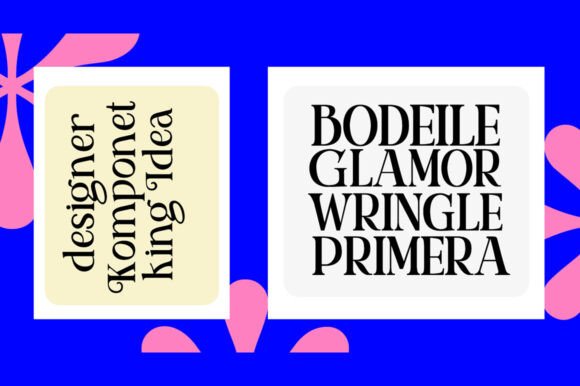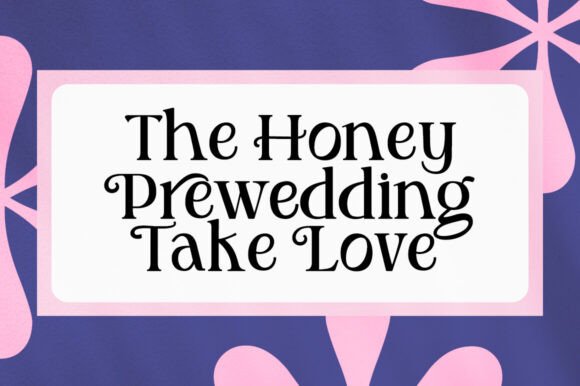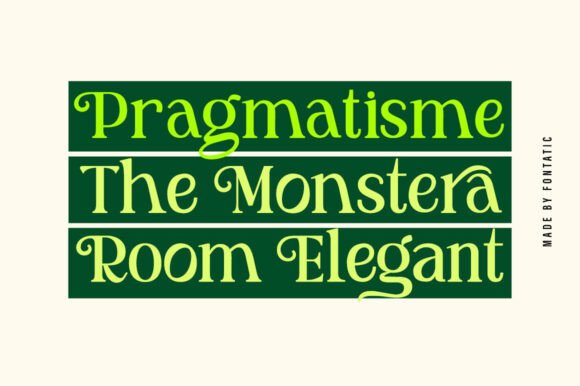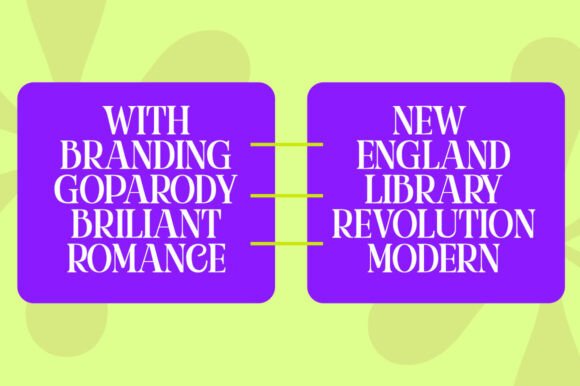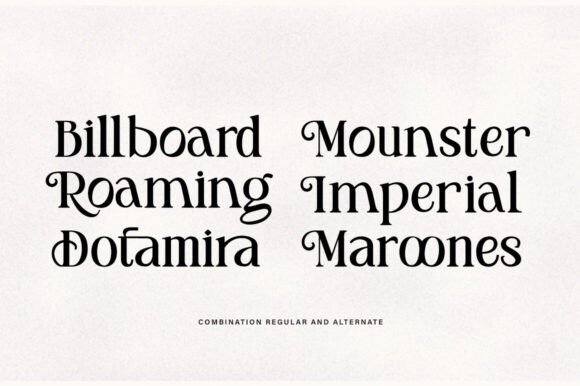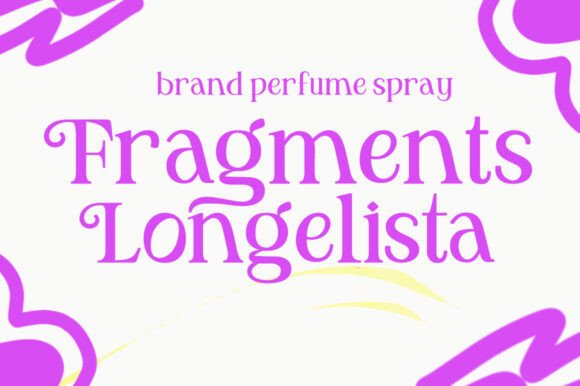
Introducing Glower Font: A Versatile Serif Typeface with Endless Possibilities
In the world of typography, a font can make or break a design project. With the right typeface, a message can be conveyed with clarity and style, while a poorly chosen font can leave a lasting negative impression. This is where Glower Font comes in – a serif font that boasts a unique blend of geometric and traditional designs, offering unparalleled versatility for designers and crafters alike.
A Serif Font with a Twist
Glower is a serif font that defies traditional categorization. Its design combines the clean lines and geometric shapes of modern typography with the classic elegance of traditional serif fonts. The result is a typeface that is both timeless and contemporary, suitable for a wide range of design applications.
Variety and Flexibility
One of the standout features of Glower Font is its varied set of alternate styles. This allows designers to experiment with different looks and feels, tailoring the font to suit their specific design needs. Whether you’re creating a bold frontispiece or a lengthy passage of text, Glower has you covered. The font offers both upright and italic character types, ensuring that your text always looks polished and refined.
Alternate Glyphs and OpenType Styles
What truly sets Glower apart is its use of alternate glyphs and OpenType styles. By accessing a series of OpenType styles, designers can unlock a range of creative possibilities, from subtle variations to dramatic transformations. This feature allows for endless experimentation and innovation, making Glower an ideal choice for designers looking to push the boundaries of typography.
Strong Frontispiece and Easy Readability
Glower Font is designed to perform exceptionally well in a variety of contexts. At large sizes, it makes a strong impression as a frontispiece, while its clear and legible design ensures easy readability in freeform text. This versatility makes it an excellent choice for designers working on projects that require both headline-grabbing flair and body text legibility.
Applications and Inspiration
So, what can you create with Glower Font? The possibilities are endless! Here are a few ideas to get you started:
- Branding and logos: Use Glower’s unique blend of geometric and traditional designs to create a memorable brand identity.
- Headlines and titles: Take advantage of Glower’s strong frontispiece to create eye-catching headlines and titles.
- Body text and articles: Glower’s easy readability makes it perfect for lengthy passages of text.
- Packaging and labels: Add a touch of elegance and sophistication to your packaging and labels with Glower.
- Digital and print media: Use Glower to create visually striking digital and print materials, from brochures to social media graphics.
In conclusion, Glower Font is a versatile and expressive serif typeface that offers designers and crafters a wealth of creative possibilities. With its unique blend of geometric and traditional designs, varied set of alternate styles, and use of alternate glyphs and OpenType styles, Glower is the perfect choice for any design project. Whether you’re a seasoned designer or just starting out, Glower Font is sure to inspire and empower your creativity.